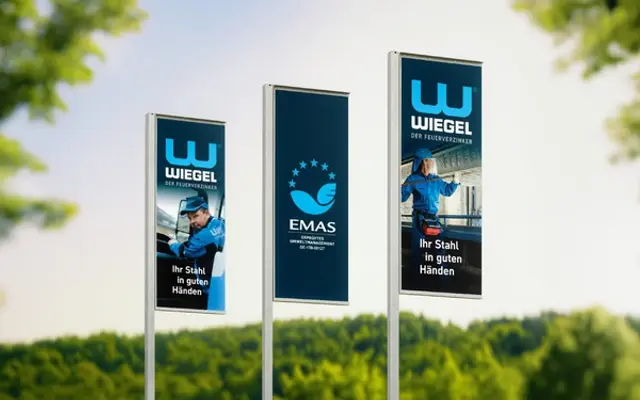
Neue DIN specimen from Fontwerk
A wide-ranging reimagining of the DIN typeface built around extreme width variants and a variable-first approach, covering eight width axes from XXCondensed to XXWide.
Rooted in the German industrial tradition of DIN, this family extends the original's utilitarian geometry into a contemporary system with nine weights, italics, reverse italics (Retalic) and eight subfamilies spanning XXCondensed to XXWide. The variable-first architecture makes the full width and weight range accessible as a single file, while script coverage across Latin, Cyrillic, Greek and Thai broadens its reach considerably. The combination of compactness and extreme expansion makes it suited to both tight editorial settings and large-format display work.
Neue DIN is a reimagining of the classic DIN typeface, a geometric industrial sans-serif with deep roots in German standardisation and signage traditions, extended here with extreme width variants and variable font capabilities.